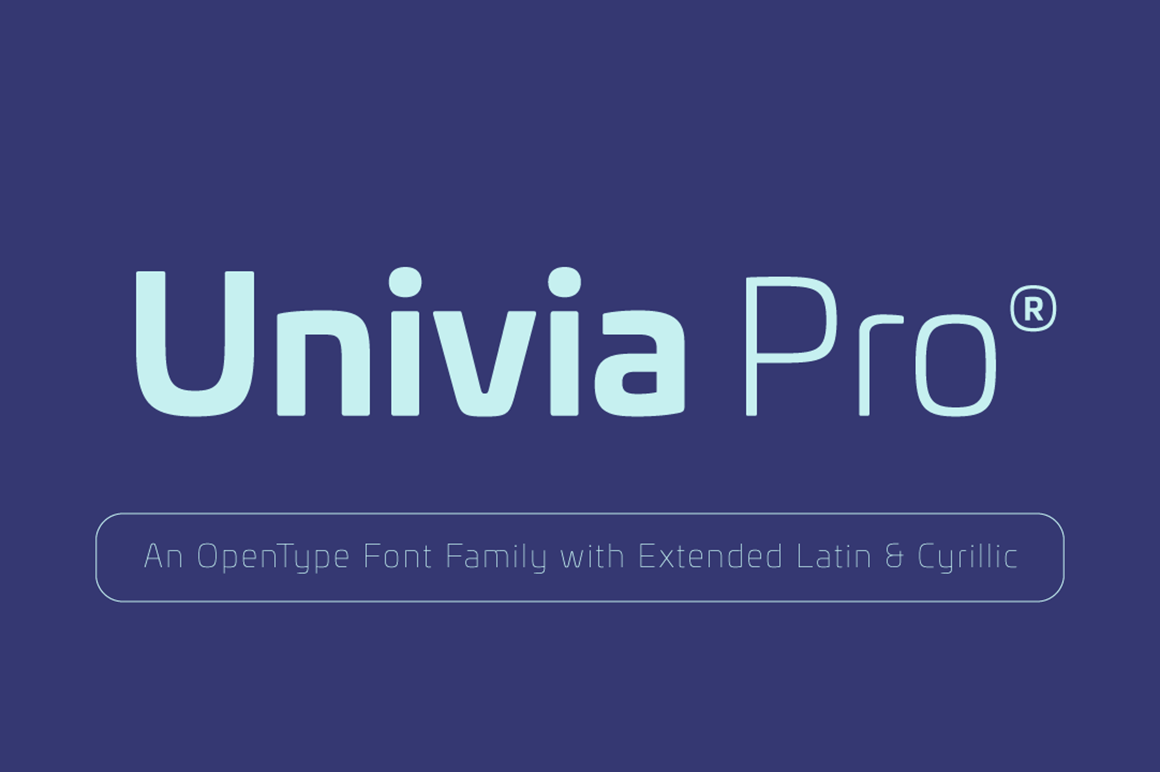
Univia Pro - 18 fonts
About this font family Designed by Olivier Gourvat in December 2015, Univia Pro is a new contemporary OpenType font family with modernity and versatility in mind. Distinctive with its pleasant look extremely modern, Univia Pro have a lot of personalty mostly achieved by smooth curves and round corners that forms a very identical style of the entire family. Univia Pro is perfect both for display and text use and due to its ultra modern look, it is more than excellent for e-books, web-sites, user interface font, mobile apps etc. The Univia Pro font family is heavily equipped with OpenType features: case sensitive, scientific superiors and inferiors, standard ligatures, old style, lining figures, proportional and tabular figures, slashed zeros, stylistic sets. It also provides broad language support.
The font family offers 18 variations (9 weights plus italics)
Univia Pro covers more than 80 languages Afrikaans, Albanian, Asu, Basque, Bemba, Bena, Bosnian, Bulgarian, Catalan, Chiga, Congo Swahili, Cornish, Croatian, Czech, Danish, Embu, English, Esperanto, Estonian, Faroese, Filipino, Finnish, French, Galician, Ganda, German, Gusii, Hungarian, Icelandic, Indonesian, Irish, Italian, Jola-Fonyi, Kabuverdianu, Kalaallisut, Kalenjin, Kamba, Kikuyu, Kinyarwanda, Latvian, Lithuanian, Luo, Luyia, Machame, Makhuwa-Meetto, Makonde, Malagasy, Malay, Maltese, Manx, Meru, Morisyen, North Ndebele, Norwegian Bokmål, Norwegian Nynorsk, Nyankole, Oromo, Polish, Portuguese, Romanian, Romansh, Rombo, Rundi, Russian, Rwa, Samburu, Sango, Sangu, Sena, Shambala, Shona, Slovak, Slovenian, Soga, Somali, Spanish, Swahili, Swedish, Swiss German, Taita, Teso, Turkmen, Vunjo, Welsh, Zulu.